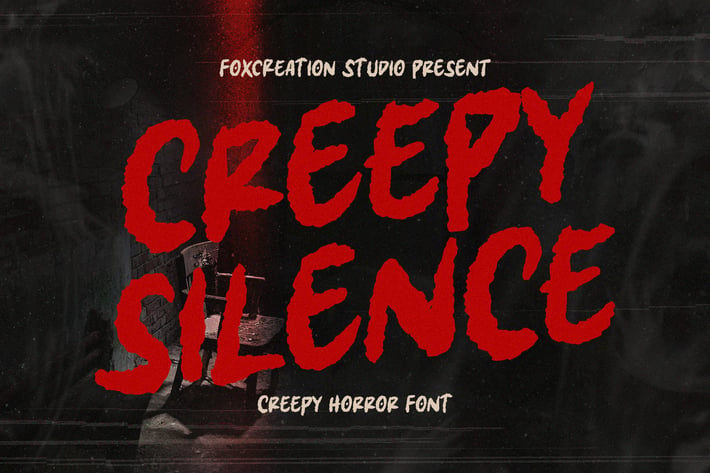
Creepy Silence - Creepy Horror Font
Introducing Creepy Silence - a Creepy Horror Font by Foxcreation Studio
Creepy Silence is a raw, handwritten font that captures a horror-filled and spooky atmosphere. Itβs perfect for creating movie posters, especially for thrillers and horror films. With its unique uppercase and lowercase letters, this font will make your designs more eerie and captivating. Its adaptability makes it a valuable choice for various design projects, and it supports multiple languages. This could be your go-to font for Halloween and beyond!